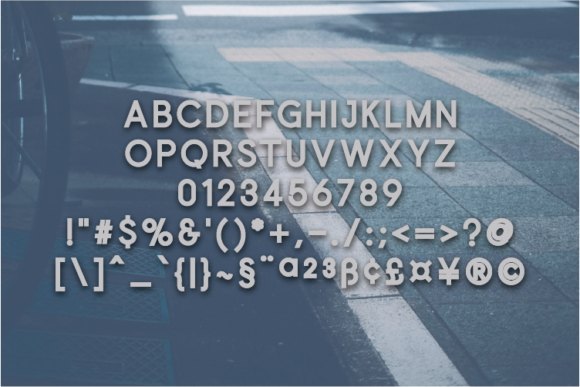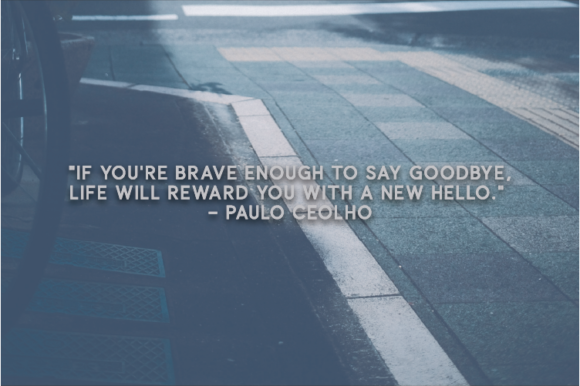
Introduction to Golistic Font
Have you ever stared at a blank canvas, a blank page, or a blank screen, waiting for the perfect spark to ignite your creativity? That’s exactly where I was when I stumbled upon the Golistic Font. Its clean lines and minimalist design instantly captured my attention, and I knew I had to learn more about this incredible design resource.
As designers, we’re always on the lookout for high-quality fonts that can elevate our creative projects and make them stand out. The Golistic Font is one such treasure that’s sure to become a valuable addition to your design arsenal. With its versatility and sleek design, it’s the perfect match for a wide range of projects, from modern websites to innovative branding materials.
Key Features of Golistic Font
- High-quality design: The Golistic Font is designed with precision and care to provide a sophisticated look for any creative project.
- Unique aesthetic: The Golistic Font features a unique blend of modern and classic design elements, making it an excellent choice for creative projects that require a distinctive look.
Honest Review: Golistic Font
As a designer, I’m always on the lookout for high-quality design resources to elevate my creative projects. Recently, I had the chance to work with the Golistic Font, and I must say it’s a solid addition to my design toolkit.
- The Golistic Font offers a modern and sleek aesthetic that’s perfect for minimalist designs.
- The font family is relatively small, with only a few styles to choose from.
- The font may not be suitable for complex or large-scale designs.
Overall, the Golistic Font is a great design resource for simple, high-quality projects. While it may have some limitations, it’s a solid choice for designers looking for a free and versatile font option.
The Golistic Font is perfect for use in a variety of creative projects, including logos, business cards, and marketing materials. Its high-quality design and transparent background make it a great choice for use in digital and print designs.